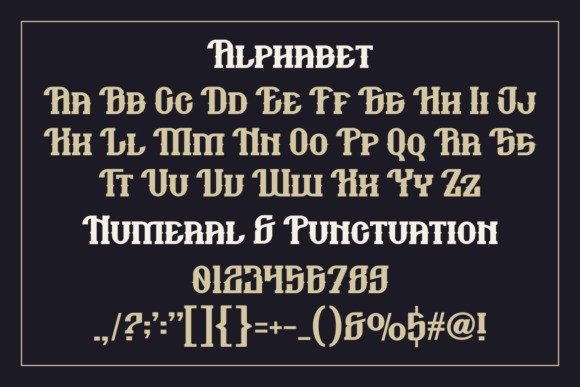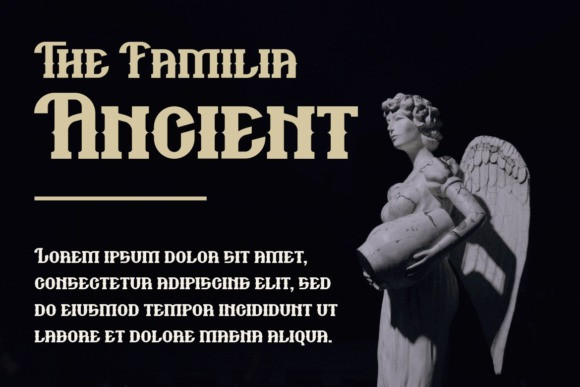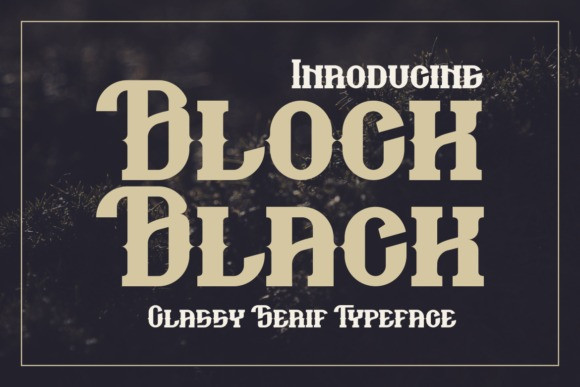
Block Black Font
Block Black Font is sleek and modern, with clean lines and a refined aesthetic. The letters are well-proportioned and easy to read, making it perfect for body text, editorial design, and branding. Its sophisticated look and feel give it an air of elegance and professionalism that’s sure to impress.